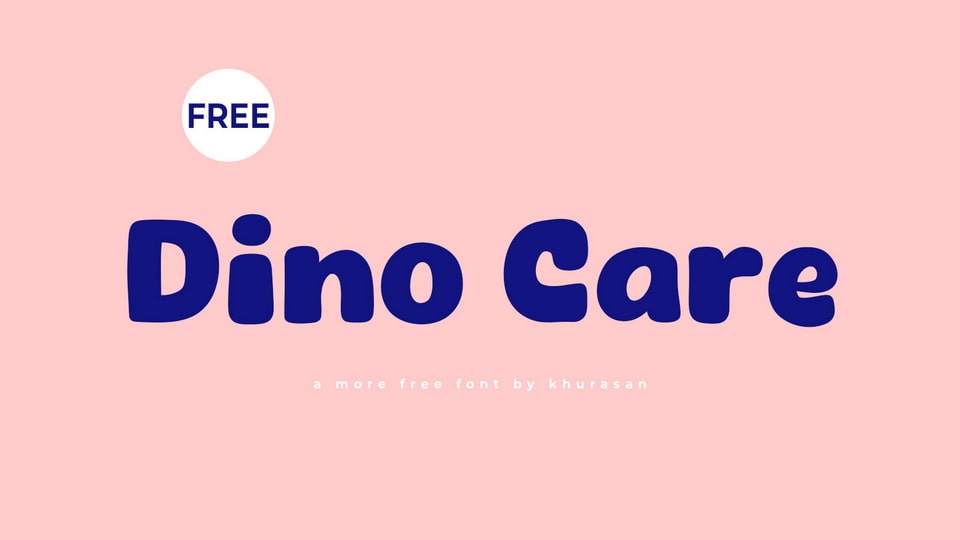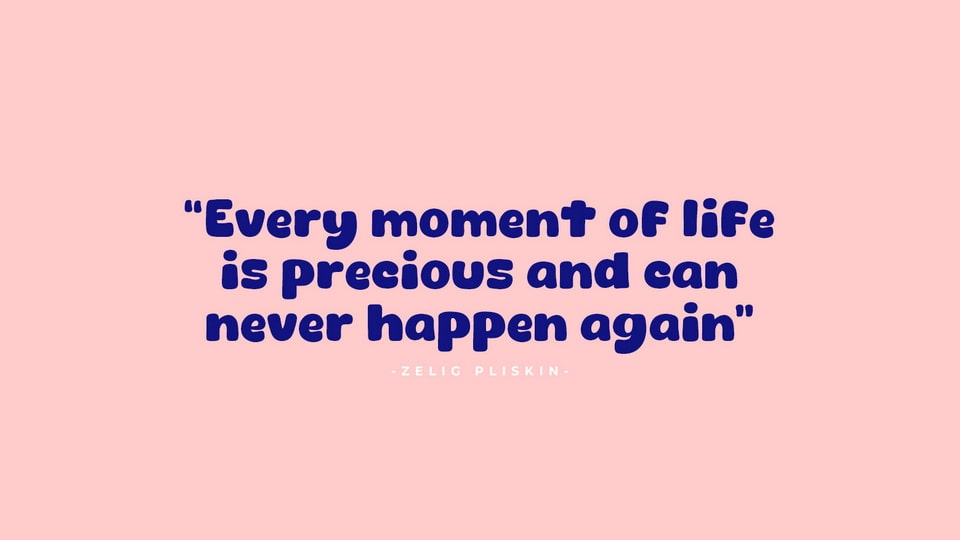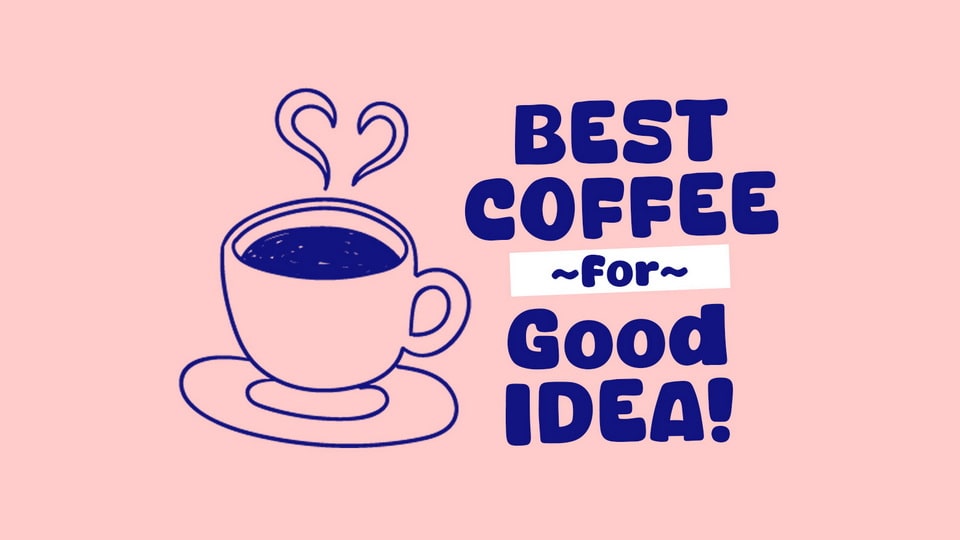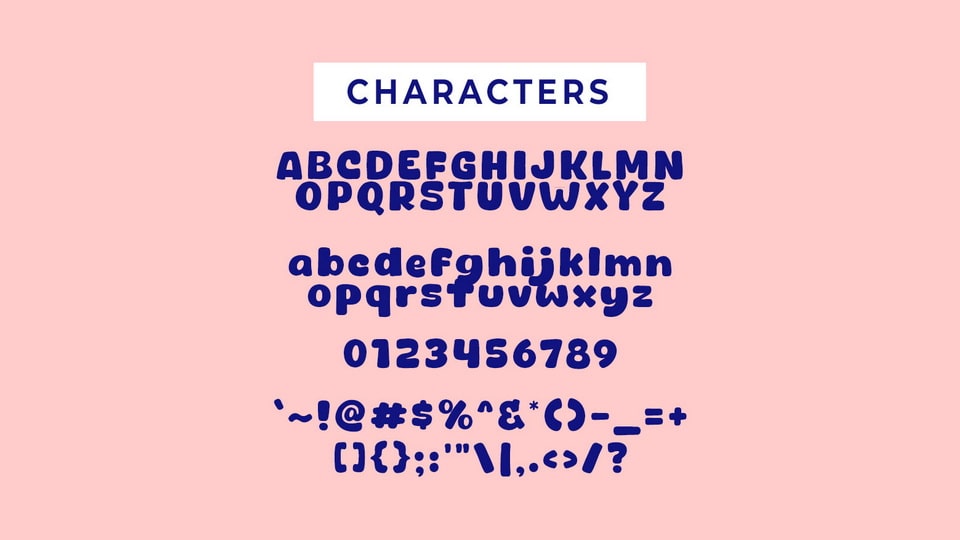
Dino Care is a funny and cute hand-drawn cartoon font that brings a burst of playful energy to your designs. The font is crafted with whimsical strokes and adorable details, evoking the charm of a doodle come to life.
With its cheerful and lighthearted style, Dino Care font is perfect for projects that aim to spread joy and laughter. Whether you’re designing comic strips, children’s books, or quirky posters, this font adds a delightful touch that invites smiles and giggles.